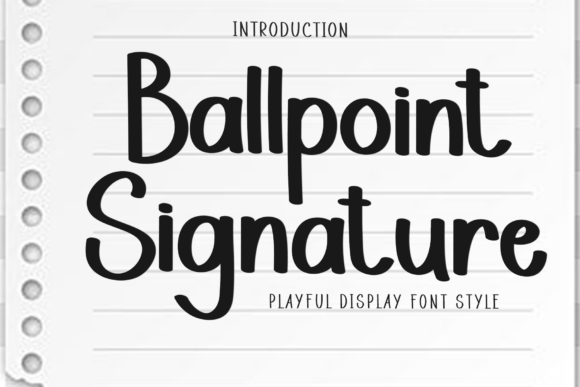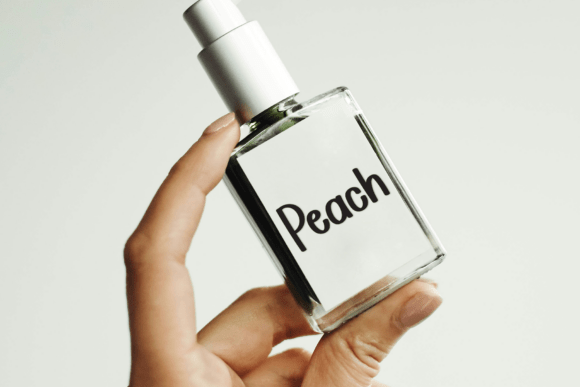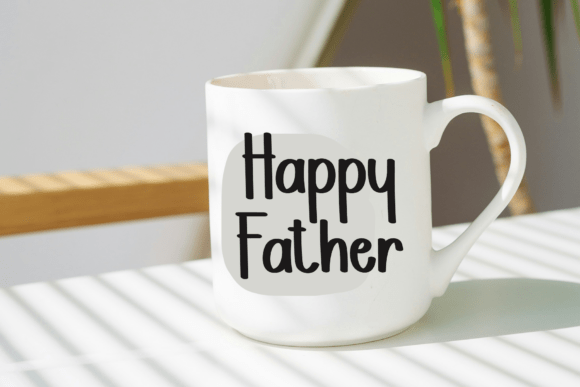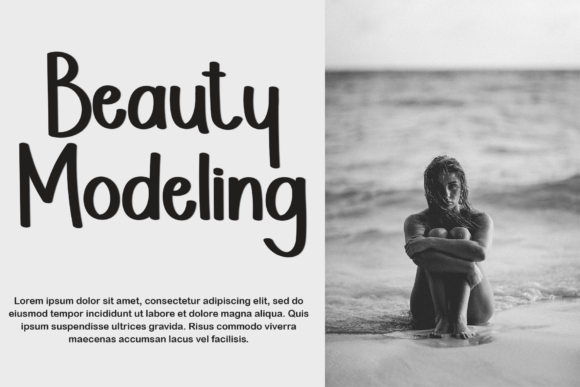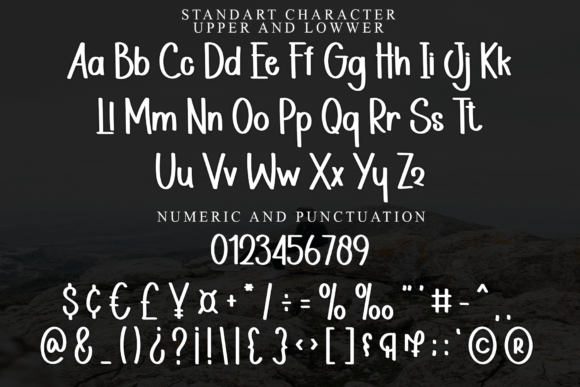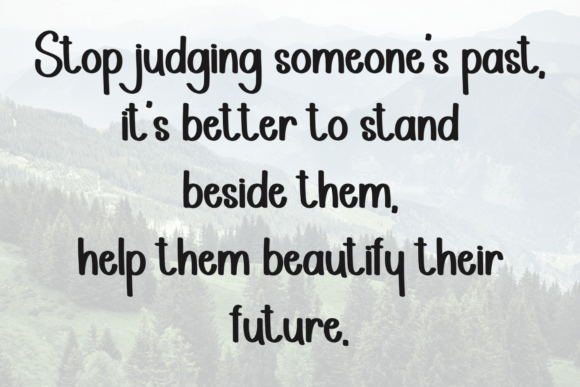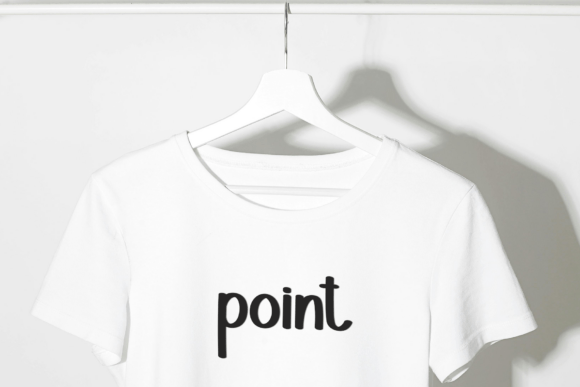
The Perfect Signature: Unleashing Creativity with Ballpoint Signature Font
Have you ever been stuck on a design project, searching for that perfect touch to make it truly special? I know I have. Sometimes, it’s just a small detail that can elevate an entire piece from ordinary to extraordinary. That’s exactly what I experienced when I discovered the Ballpoint Signature Font – a beautiful and eye-catching typeface that adds a unique softness to any design.
This enchanting font is designed to give your projects a personal touch, with its distinctive strokes and versatile characters making it perfect for a wide range of creative works. Whether you’re a seasoned designer or just starting out, the Ballpoint Signature Font is an invaluable asset that will enhance your designs and make them appealing to audiences across different artistic fields.
Key Features of Ballpoint Signature Font
- Font Style: A handwritten font designed to mimic a person’s signature, ideal for personal and creative projects.
- Unique Characteristics: The font features a unique, hand-written style with varying line widths, making each letter distinct and personal.
Ballpoint Signature Font Review
I’ve been experimenting with the Ballpoint Signature Font, and here’s my honest take.
- The font has a unique, hand-drawn aesthetic that’s perfect for adding a personal touch to documents, websites, or social media graphics.
- It’s highly legible, even at smaller font sizes, making it suitable for body text or headlines.
- The Ballpoint Signature Font comes in a range of weights and styles, offering flexibility for various design applications.
- The font is well-suited for creative industries like graphic design, fashion, or art, where a more expressive font can help convey a brand’s personality.
- The font may not be ideal for formal or professional settings where a more traditional, sans-serif font is preferred.
- The Ballpoint Signature Font may not be as versatile as some other fonts, limiting its use in certain design contexts.
- The font’s uniqueness can also be a double-edged sword – some designers may find it too quirky or distracting.
Overall, I think the Ballpoint Signature Font is a great addition to any designer’s toolkit. While it may not be suitable for every project, it’s perfect for adding a touch of personality and whimsy to your designs.
The Ballpoint Signature Font is ideal for creating realistic handwritten signatures, logos, and branding elements.
Use it to:
- Create custom signatures for business cards, documents, and emails.
- Design logos and branding elements that mimic handwritten signatures.
- Add a personal touch to your designs with realistic handwritten text.
Alternatives to Ballpoint Signature Font for Designers
Great Vibes Font is a modern, handwritten font perfect for creating a friendly and approachable tone. It’s ideal for use in social media posts, advertising, and editorial content where a casual, relaxed feel is desired.
Compared to Ballpoint Signature Font, Great Vibes Font has a more casual and laid-back feel, making it suitable for a wider range of applications.
Pacifico Font is a beautiful, elegant font with a touch of sophistication. It’s perfect for use in high-end branding, luxury products, and fine dining establishments where a refined and upscale feel is desired.
Pacifico Font has a more refined and polished feel compared to Ballpoint Signature Font, making it suitable for more formal and high-end applications.
Alex Brush Font is a handwritten font with a personal and intimate feel. It’s ideal for use in personal branding, invitations, and wedding stationery where a touch of warmth and personality is desired.
What is the recommended font size for using the Ballpoint Signature Font?
The recommended font size for using the Ballpoint Signature Font is between 10pt and 24pt. This font size range provides optimal legibility and readability for most applications, including business cards, letterheads, and product labels.